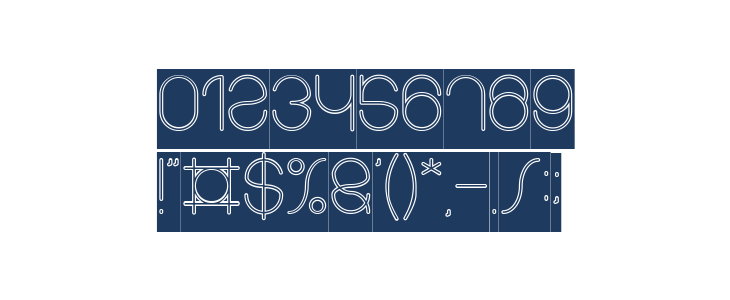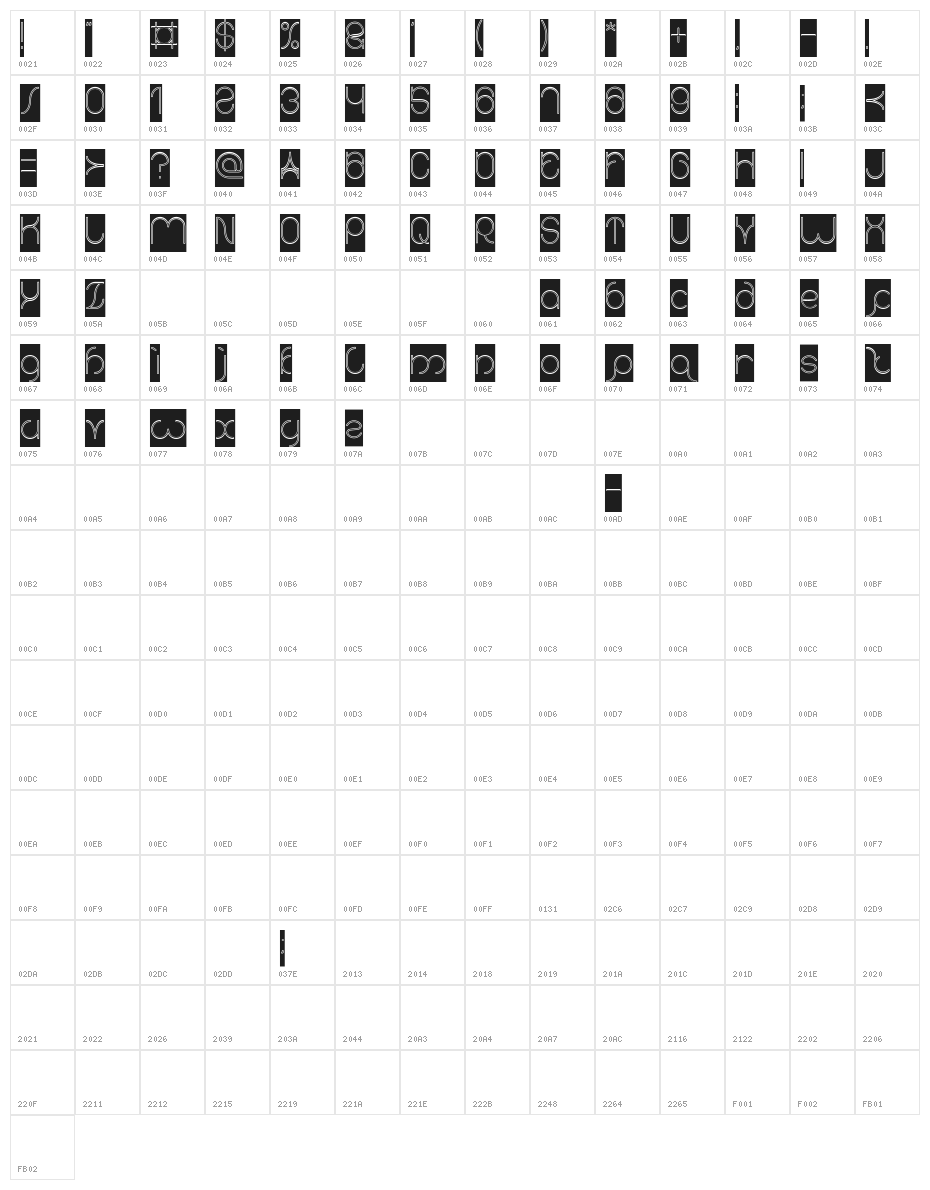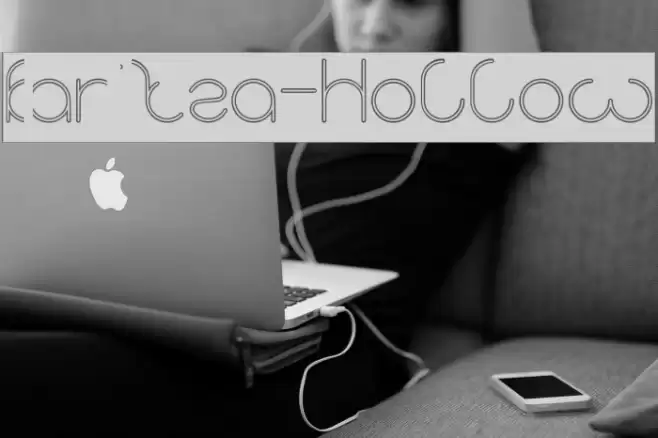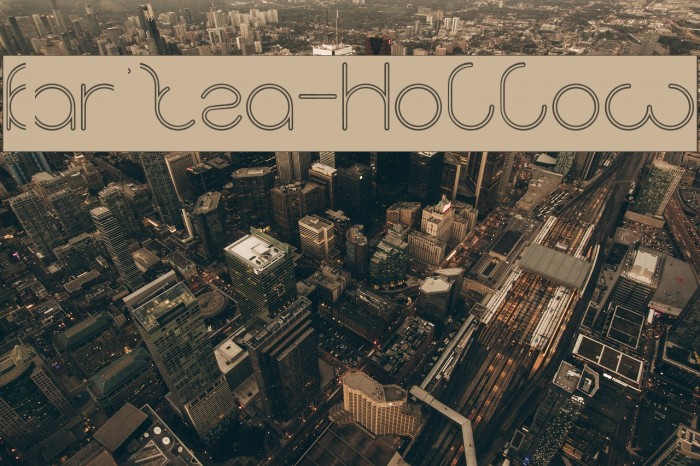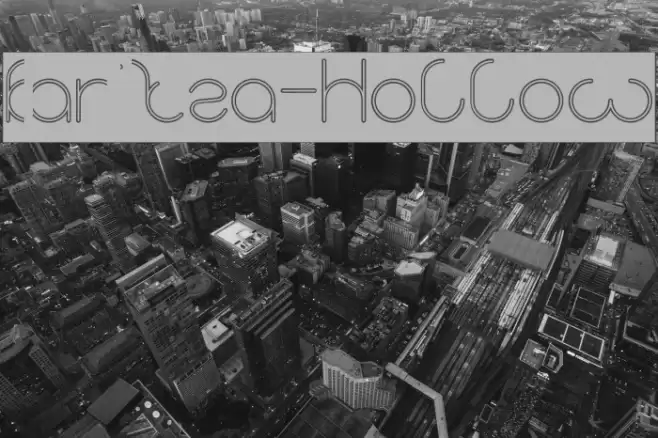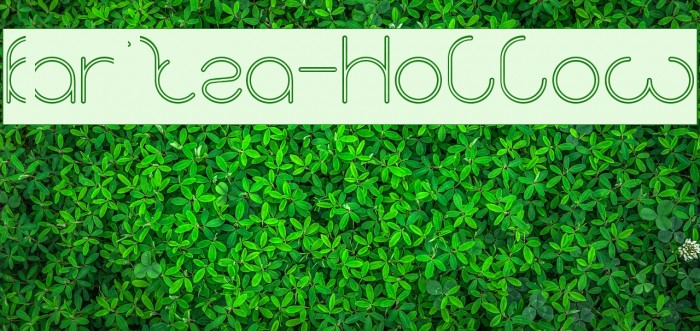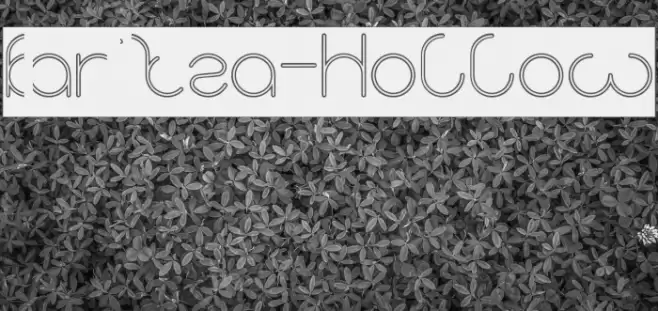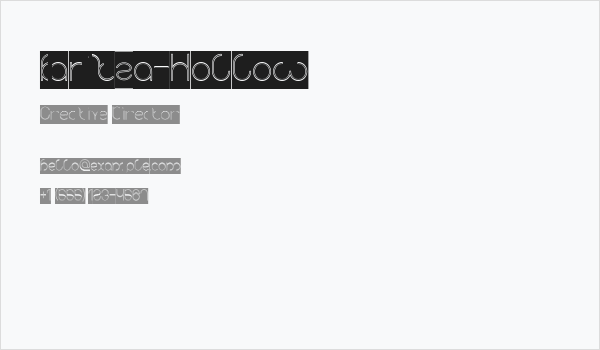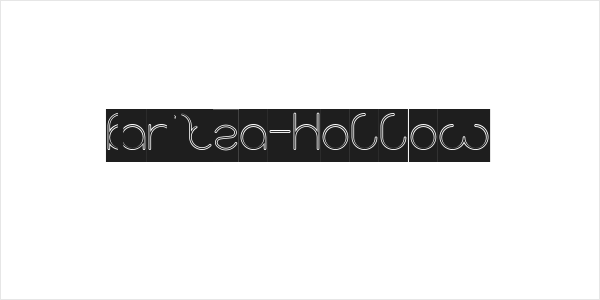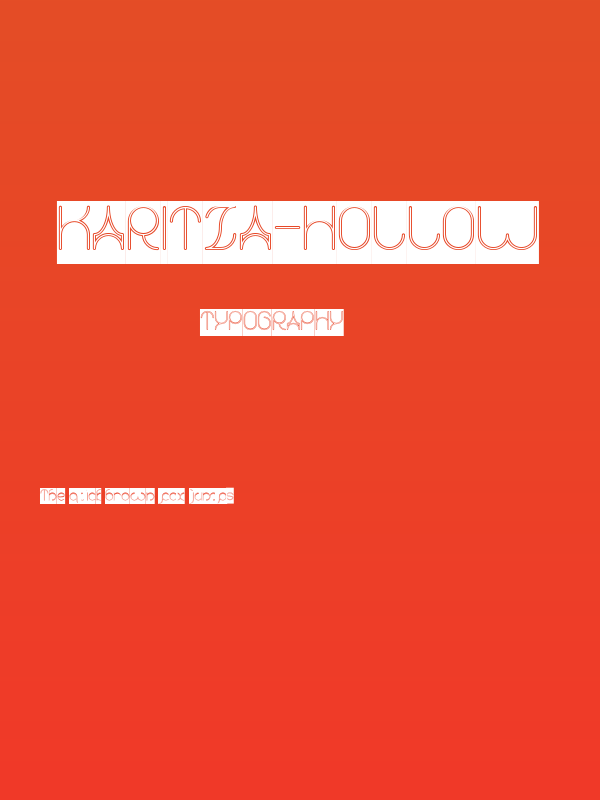
karitza-Hollow Font
karitza-Hollow Description
This font features a unique hollow design with a modern and futuristic aesthetic. The characters are outlined with a consistent stroke width, creating a clean and airy appearance. The uppercase and lowercase letters maintain a uniform style, with rounded edges and smooth curves that enhance readability while adding a touch of elegance. The numerals and special characters follow the same design principles, ensuring a cohesive look across all glyphs. This font's distinct style makes it suitable for creative and contemporary projects, where a bold statement is desired without overwhelming the viewer.
KARITZA-HOLLOW UPPERCASE
KARITZA-HOLLOW LOWERCASE
KARITZA-HOLLOW OTHER CHARS
| Proposed Projects | Ideal for branding, posters, digital art, and modern web design projects. |